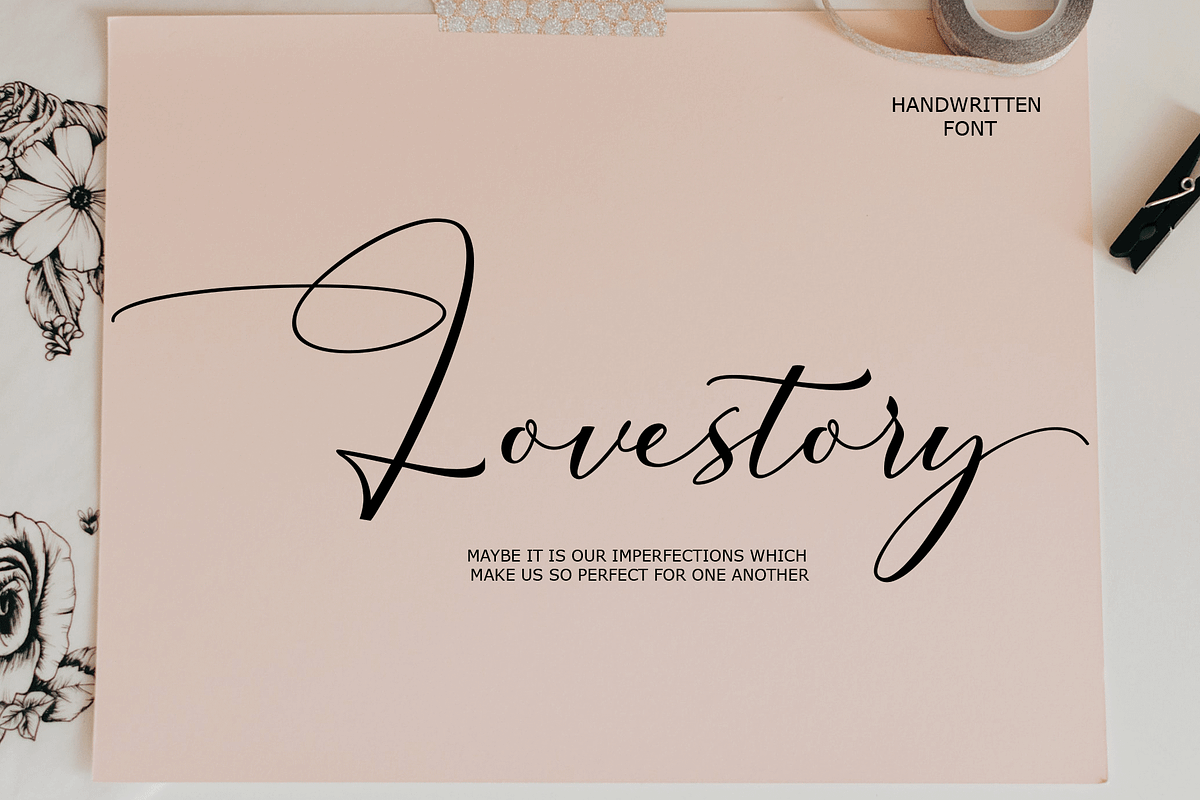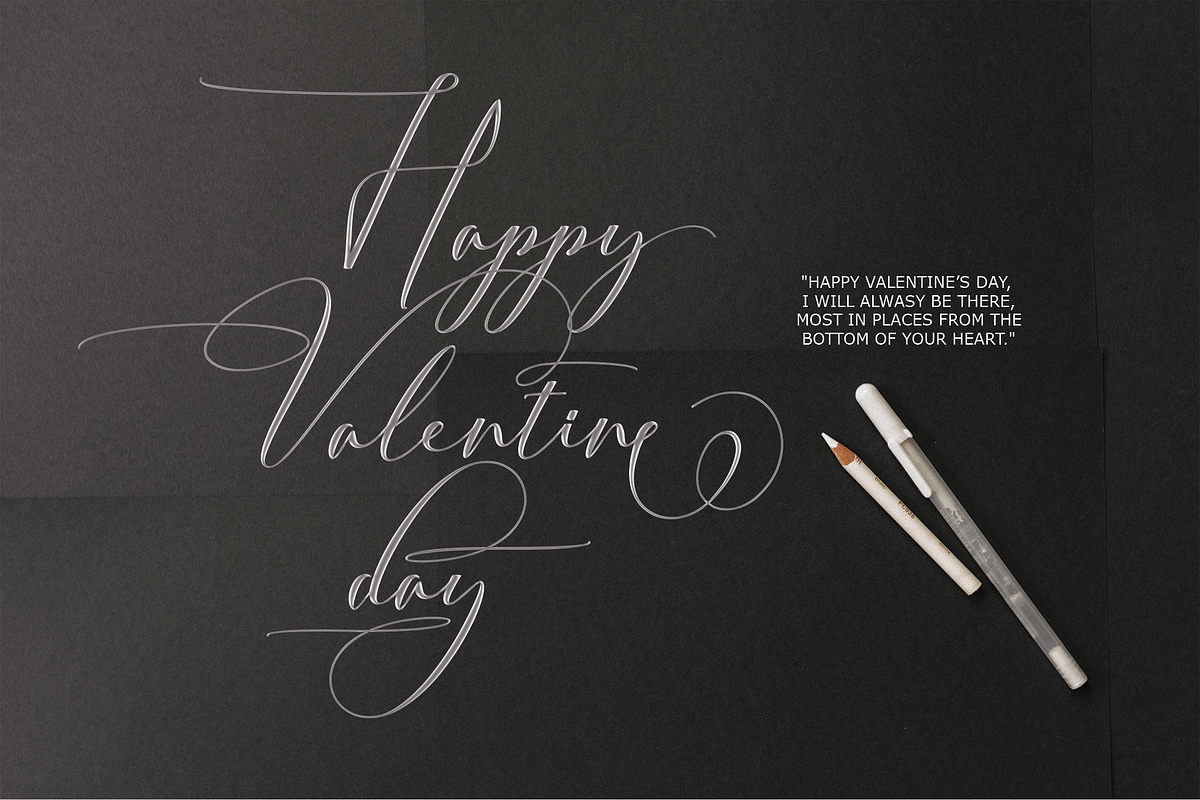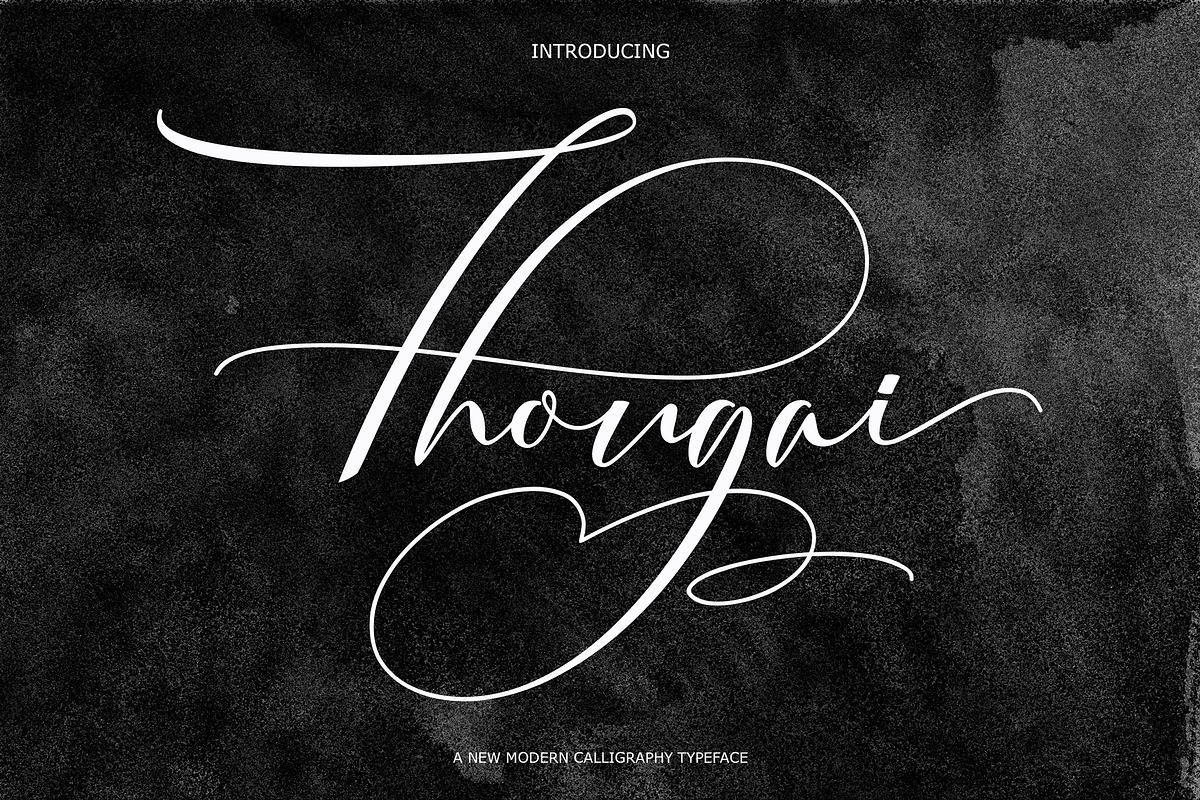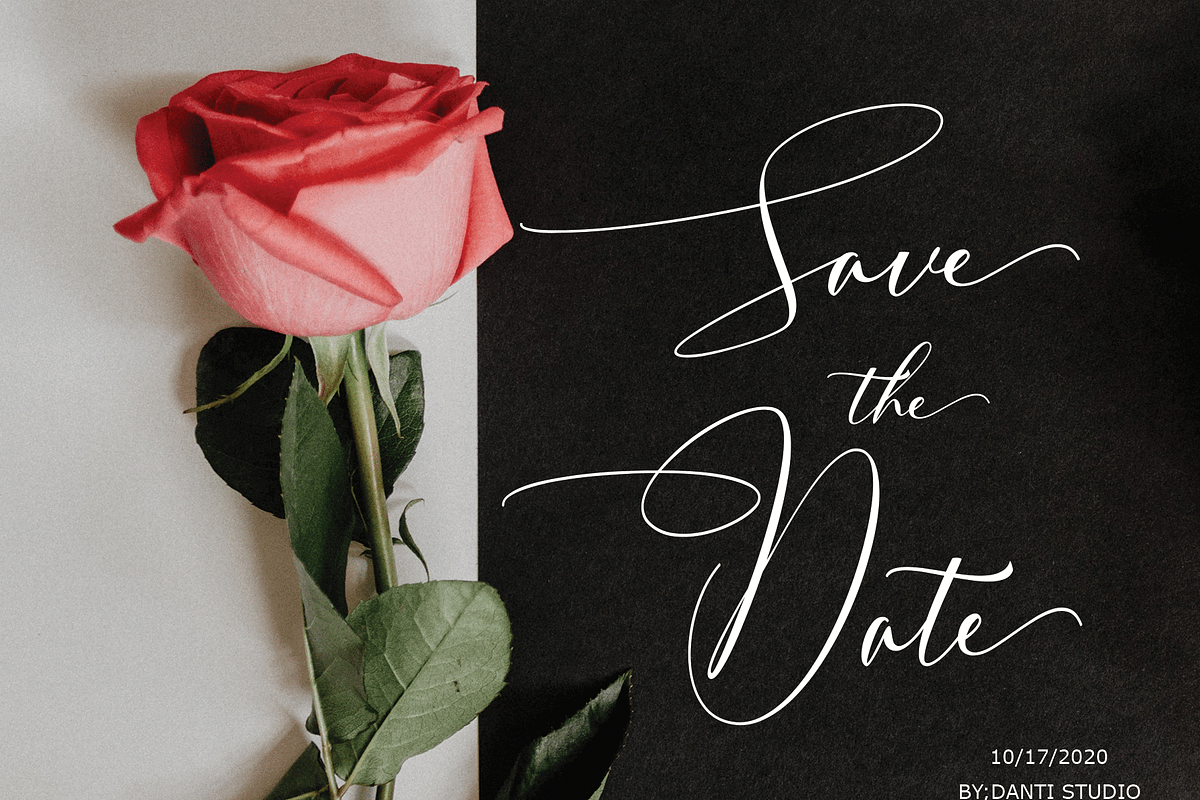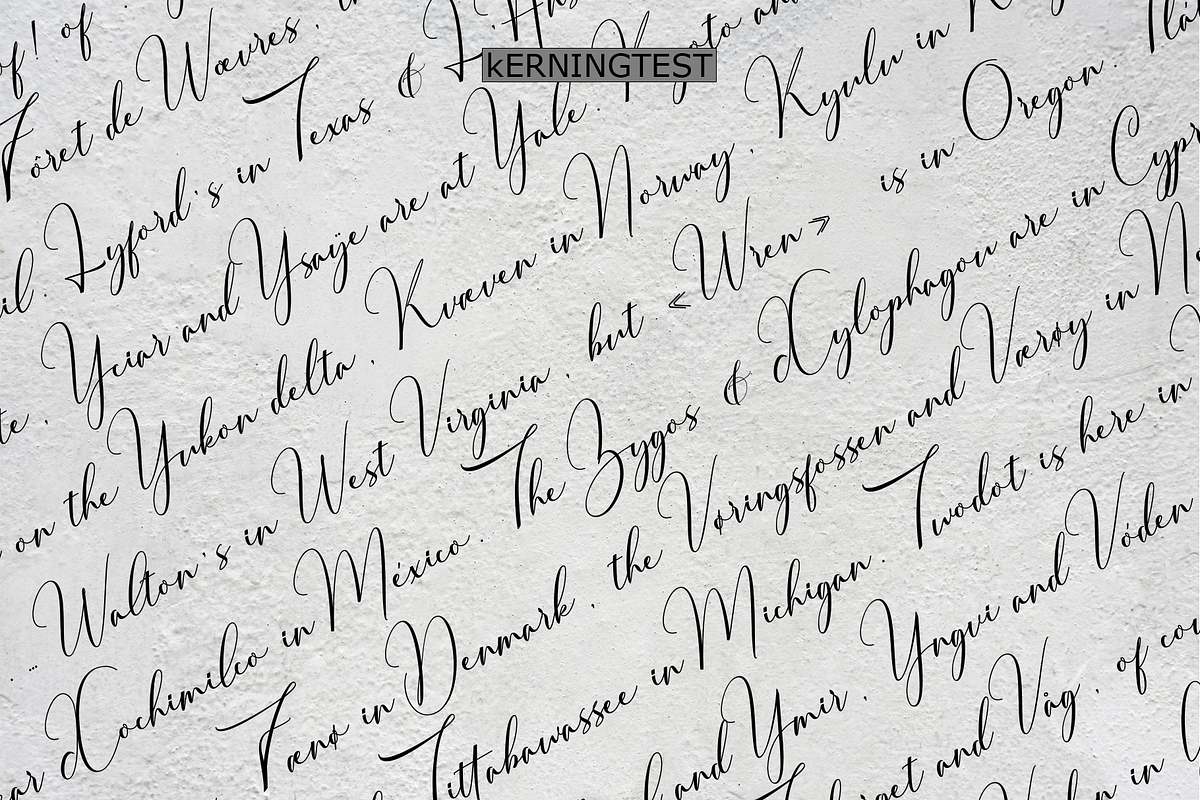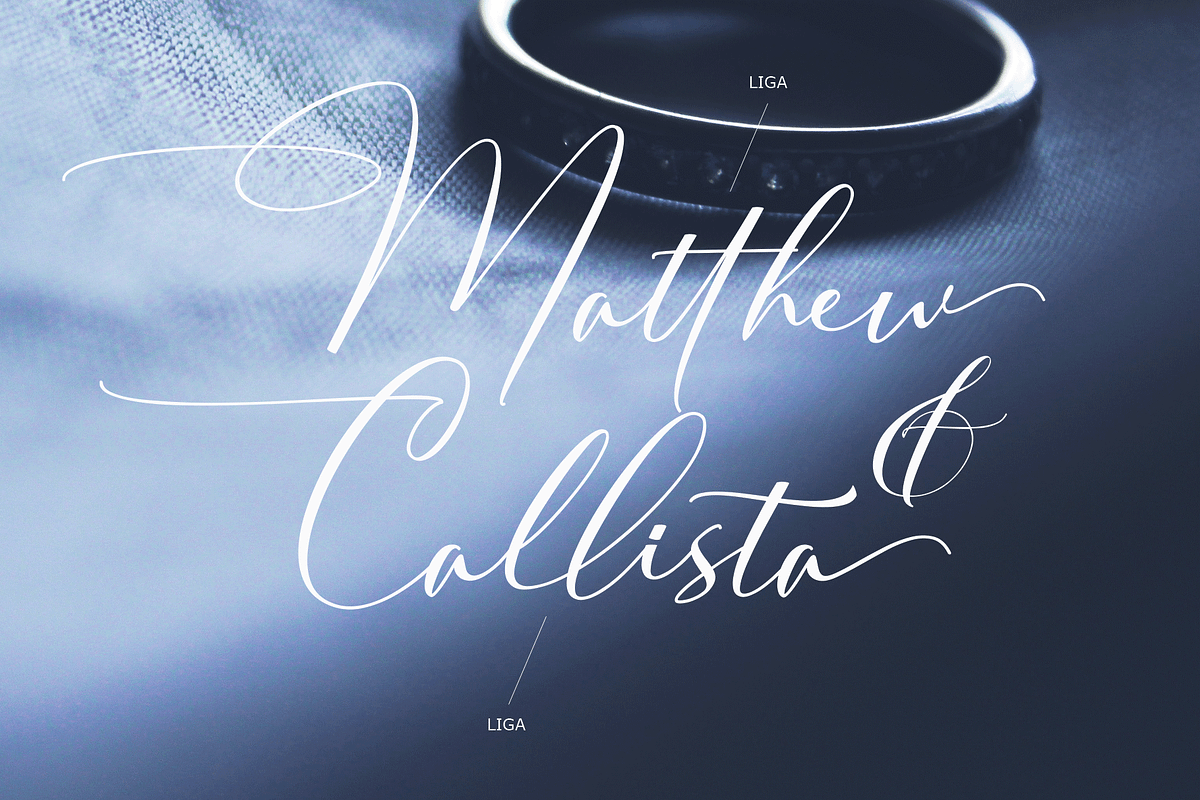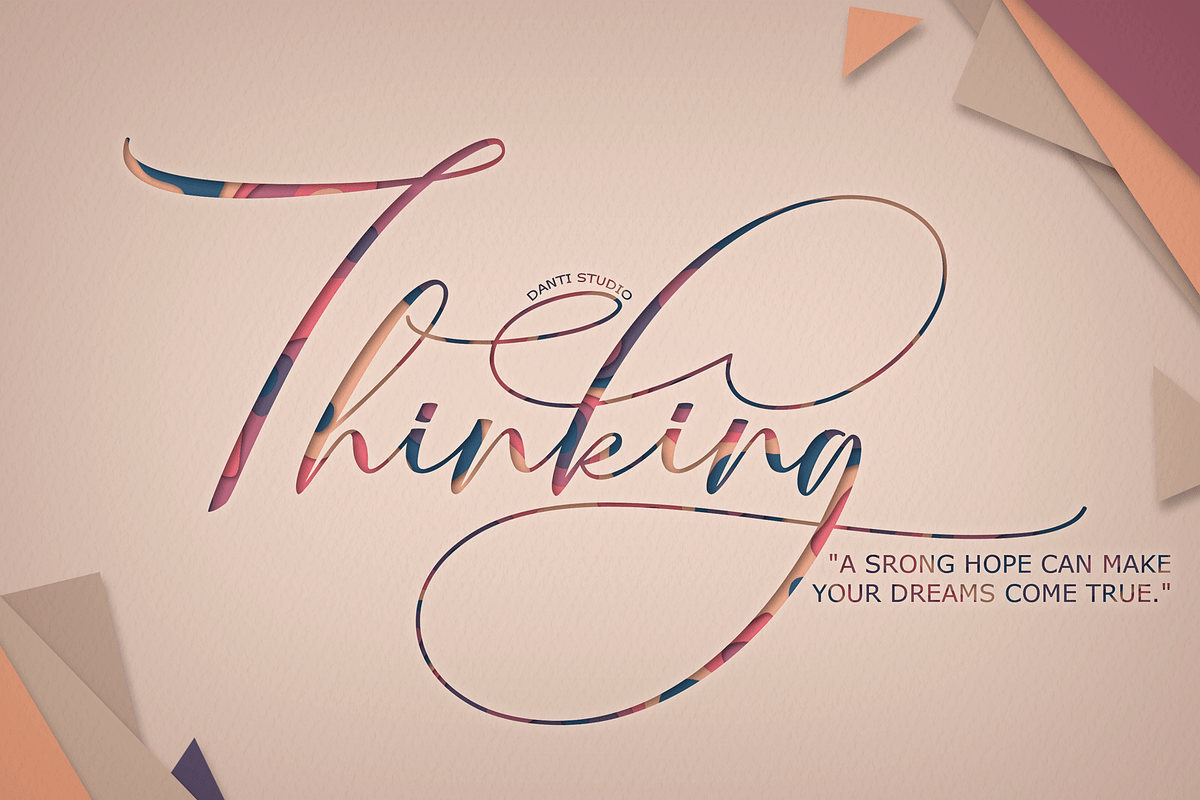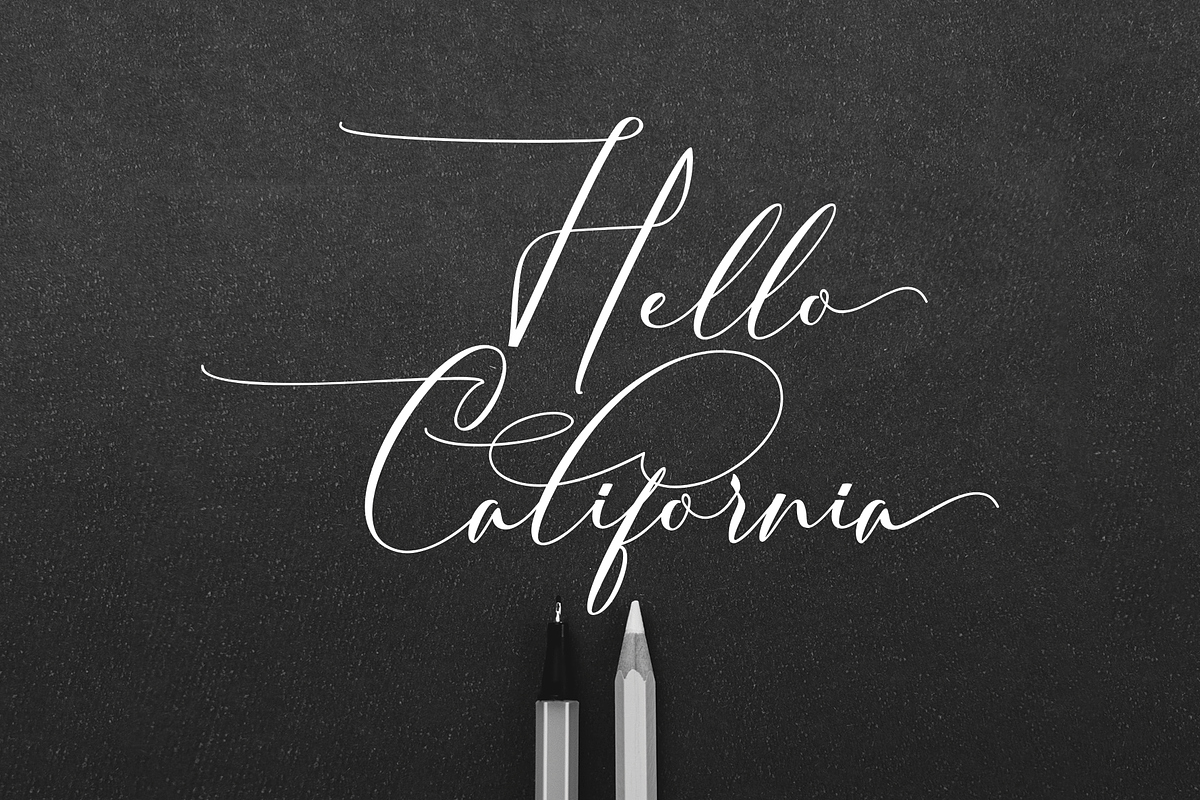
Thougai
Thougai font script a work that is purely a result of handwriting, has a natural characteristic. this is perfect for invitations, signatures, blogs, social media, business cards, product brands.
Thougai has Stylistic standard, Stylistic Alternate, Stylistic Sets and ligatures. and includes uppercase and lowercase letters, numbers and punctuation marks.